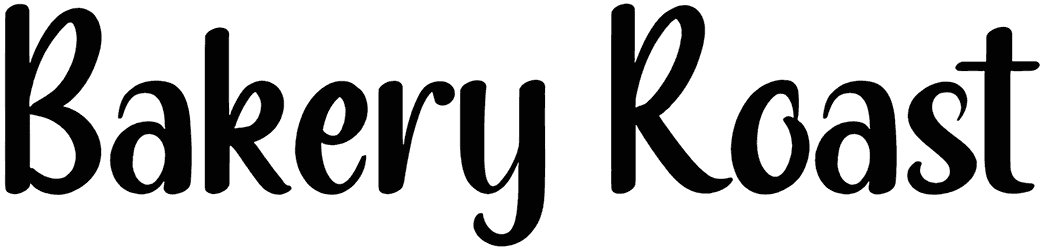
Bakery Roast Font
If you feel that you can’t take your creative ideas to the highest possible level of quality, due to the lack of a suitable font, we would like to advise you to pick up a lovely bakery font, the same as Bakery Roast.
Aside from the lack of numbers, this masterpiece can bring a sense of sincerity, playfulness, friendliness, or drama to your product labels, stickers, blog posts, headlines, or wedding invitations.